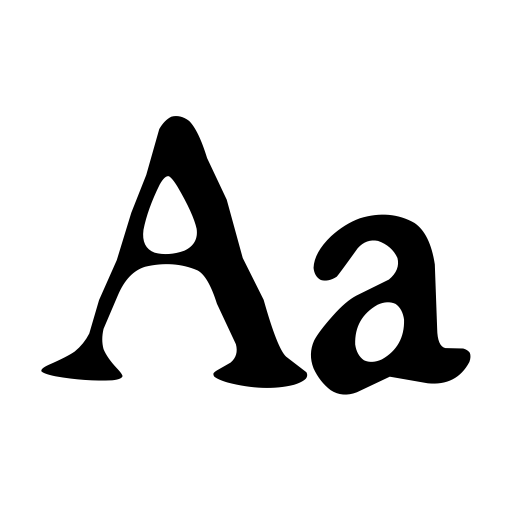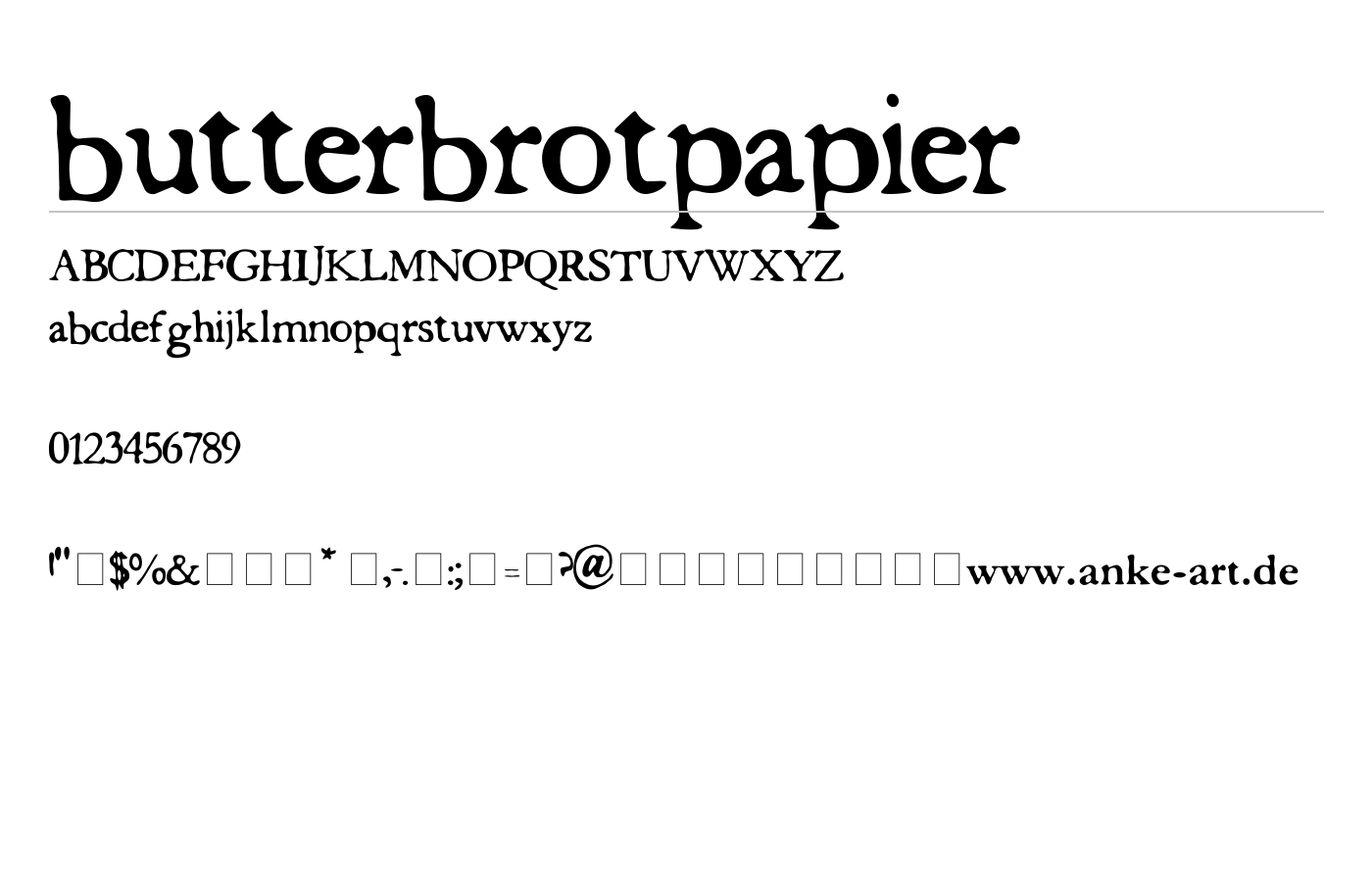
Butterbrotpapier is a distinctive serif font with a playful, hand-crafted feel that blends traditional and quirky elements. Its uneven stroke widths, bracketed serifs, and slightly irregular shapes give it a charming, vintage quality that works well for artistic projects, creative branding, and whimsical editorial designs. This font shines in contexts where a unique, approachable personality is desired, especially in logos and headlines that aim to stand out with character and warmth.
butterbrotpapier Font